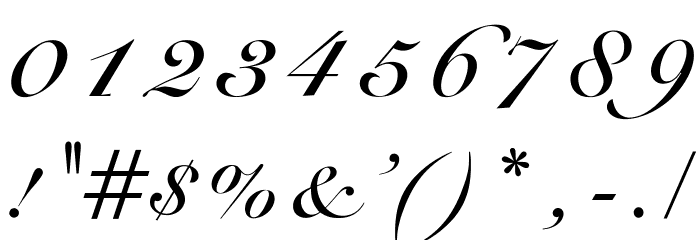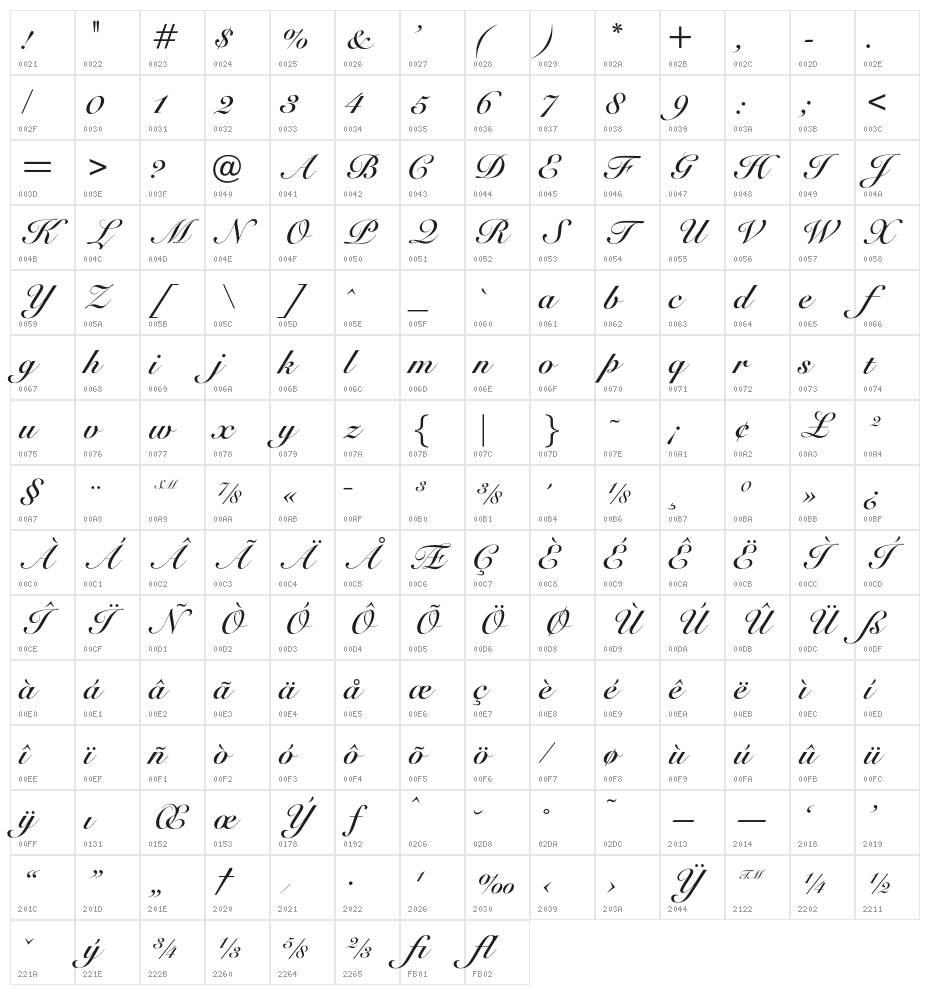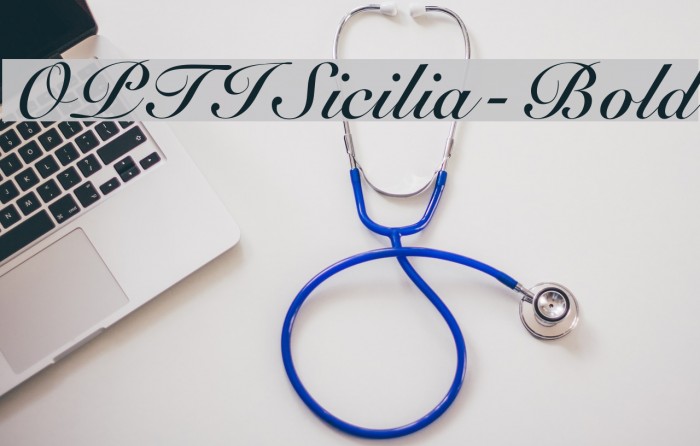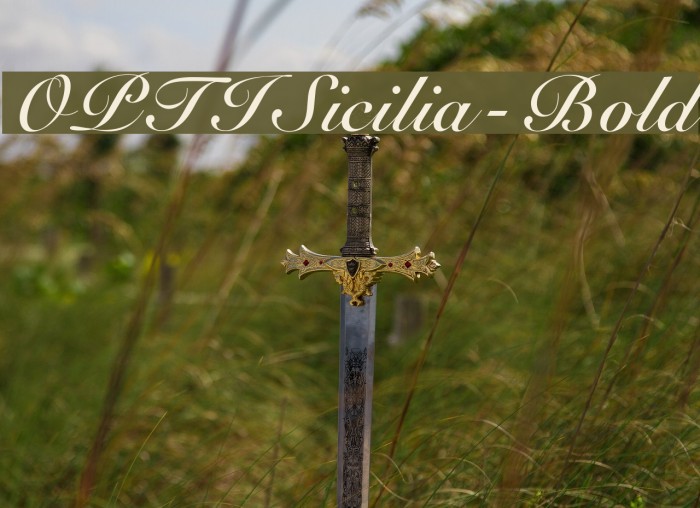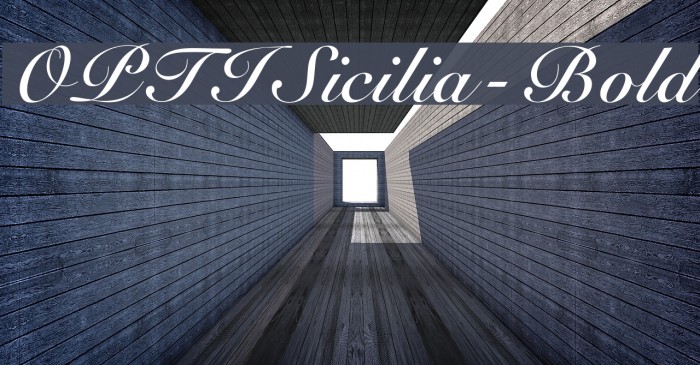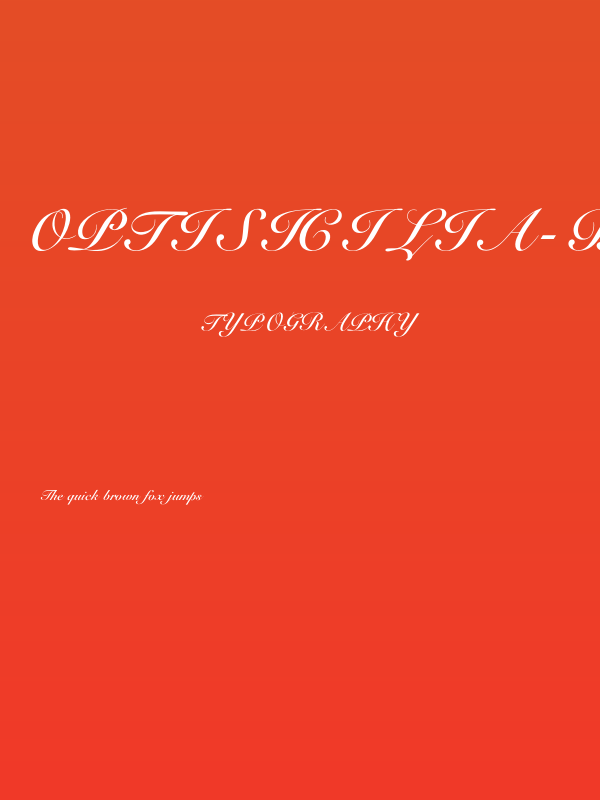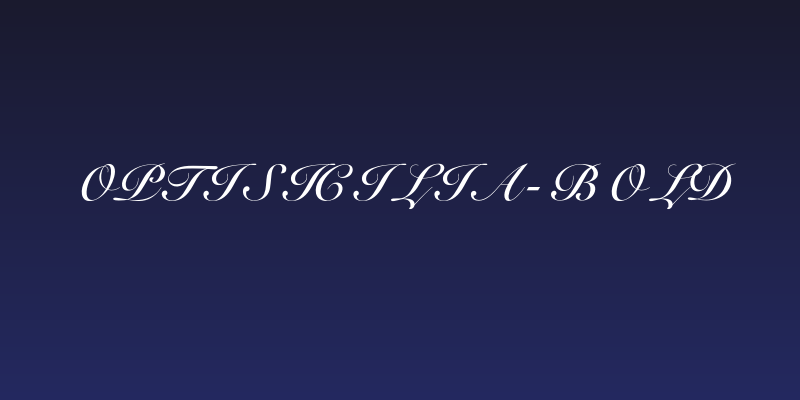
OPTISicilia-Bold Font
OPTISicilia-Bold Description
This elegant script font features a sophisticated and flowing design, characterized by its smooth, cursive strokes and graceful curves. The uppercase letters exhibit a refined and formal appearance, with intricate loops and flourishes that add a touch of luxury. The lowercase letters maintain a consistent style, with a harmonious blend of thick and thin lines that create a dynamic contrast. The numerals and special characters are crafted with the same attention to detail, ensuring a cohesive look across all elements. This font exudes a sense of elegance and tradition, making it ideal for projects that require a touch of class and sophistication.
| Overall Style | Elegant, Traditional |
| Proposed Projects | Ideal for wedding invitations, luxury branding, formal event programs, and elegant packaging designs. |